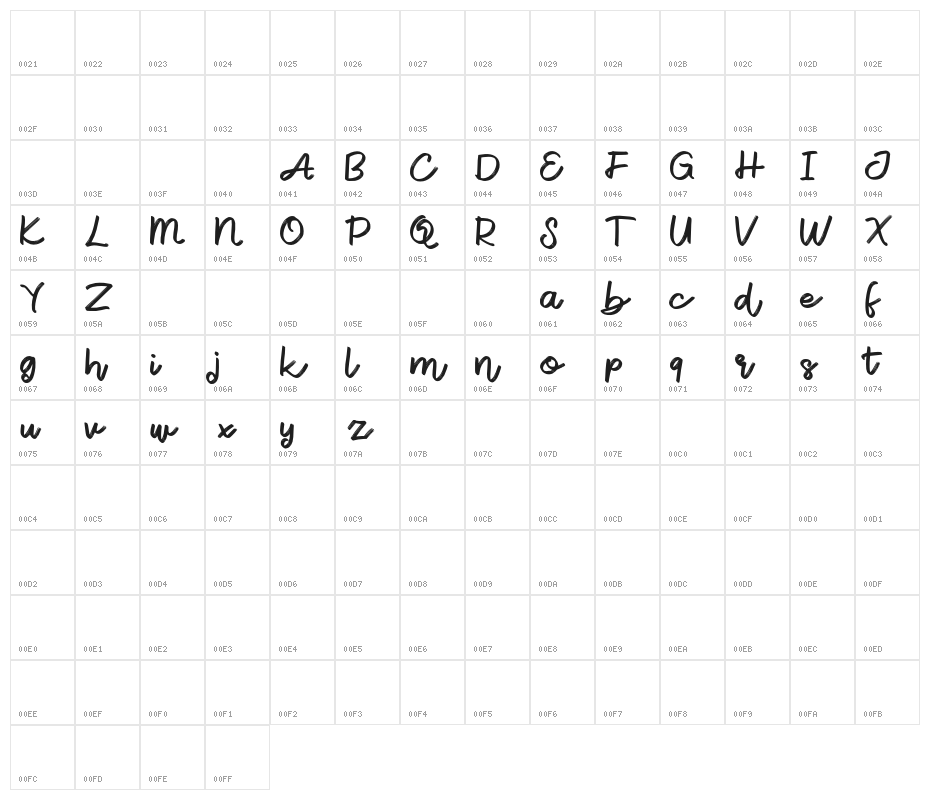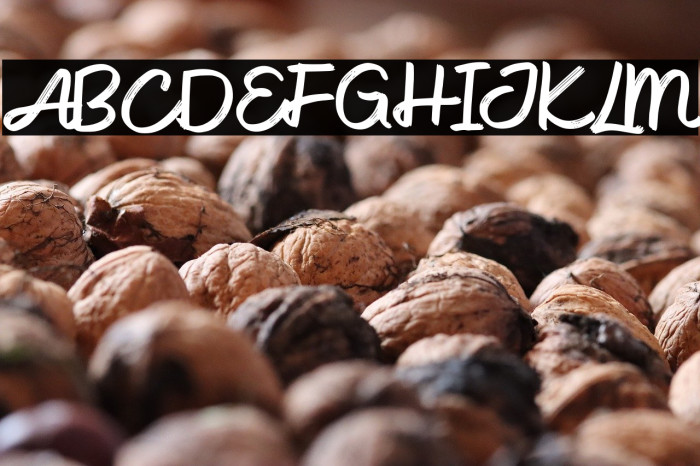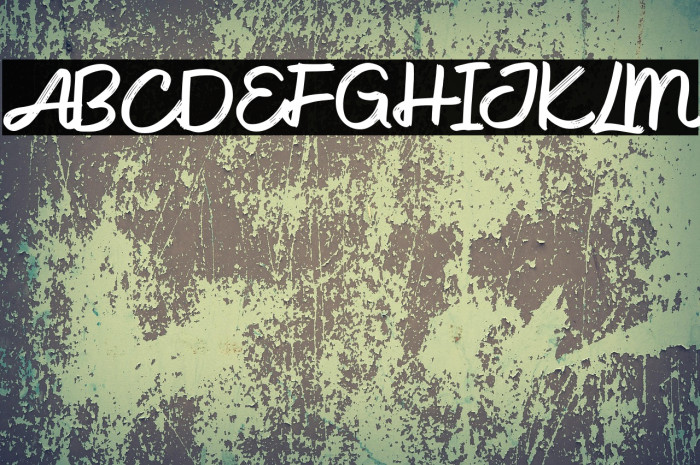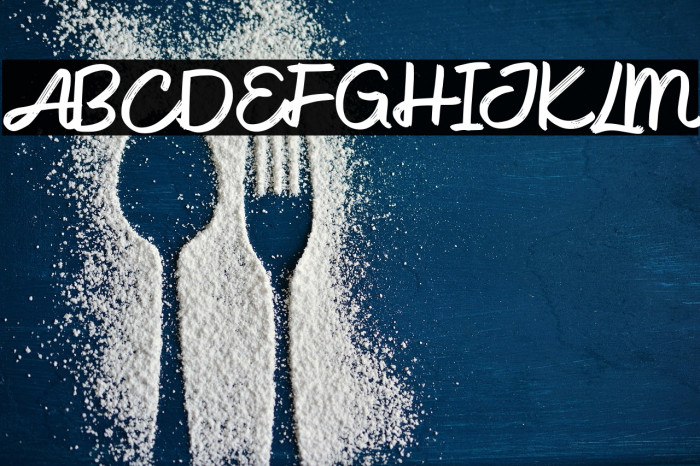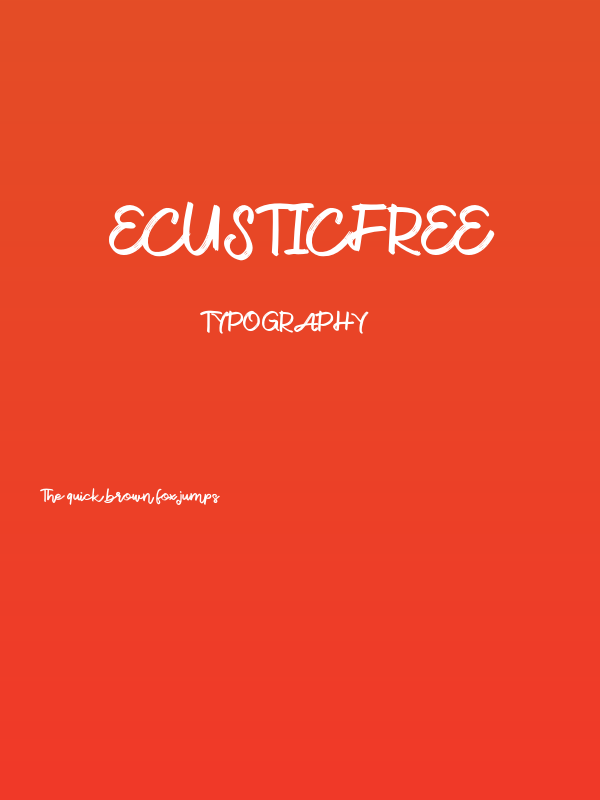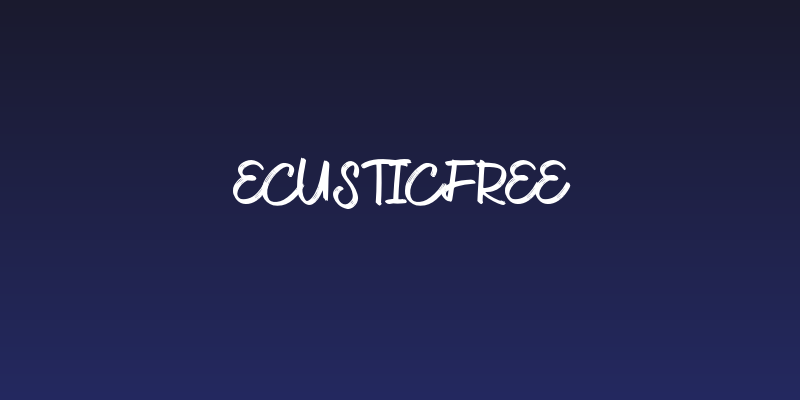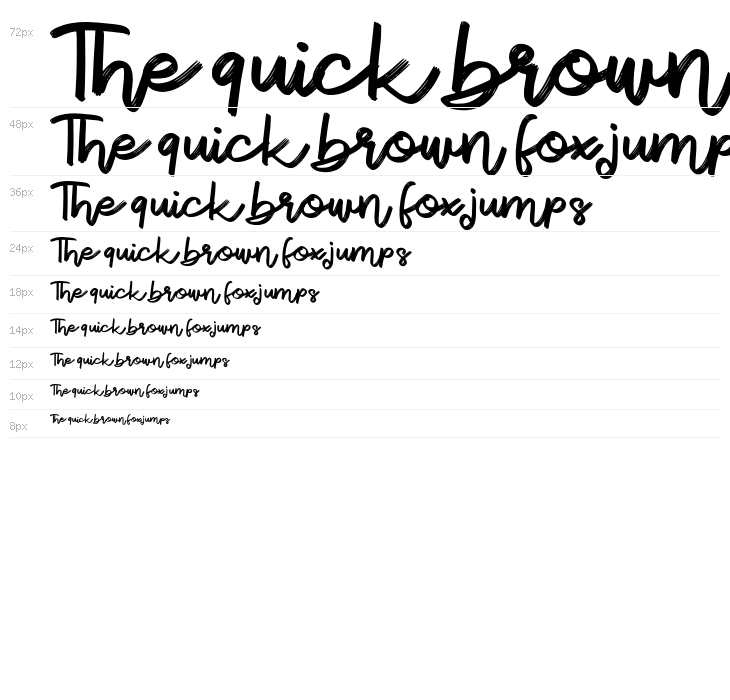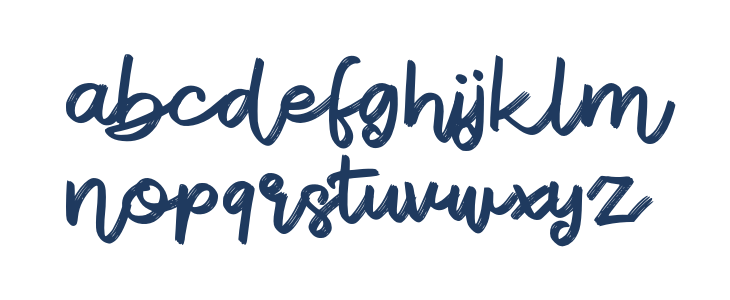
EcusticFREE Font
EcusticFREE Description
This font features a bold and expressive script style, characterized by its fluid and dynamic strokes. The letters are interconnected, creating a sense of movement and continuity. The uppercase letters are slightly more structured, while the lowercase letters exhibit a more playful and casual appearance. The overall design is modern and artistic, making it suitable for creative projects. The font's boldness and unique style make it stand out, adding a personal touch to any design.